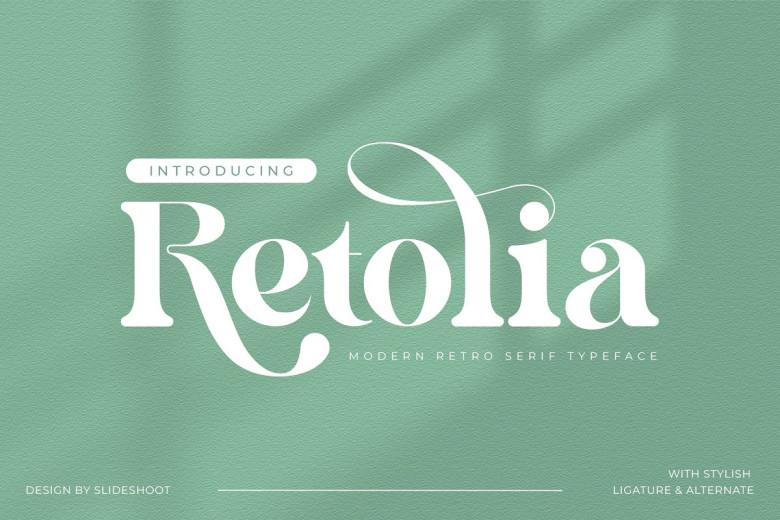
Retolia Font
Retolia Retro serif font is an elegant, stylish, and smooth serif font featuring retro-style icons for an eye-catching retro-look font with its own distinct character and is ideal for invitation cards, corporate logos, business cards, brand names, book titles and various designs. Its retro icon makes this font ideal for invitation cards as well as movie titles or book titles among many other designs.
Retolia Retro Serif, an elegant serif font with binding and alternation options to give its luxurious appearance, is an exquisite serif font perfect for any project.
Retolia Retro Serif Font